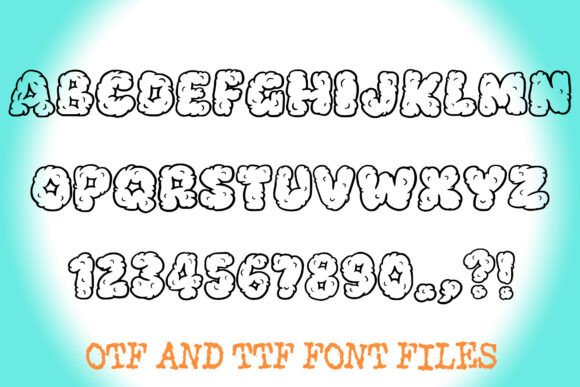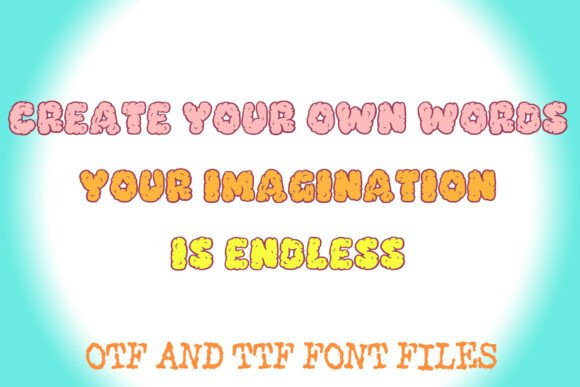
When Fonts Get a Little Too Real
Have you ever found yourself staring at a blank canvas, desperately searching for the perfect font to match the absurdity of your design? Maybe you’re creating a cartoon character, a spooky Halloween graphic, or a slime-themed product – whatever it is, you need a font that’s as bold and playful as your imagination. That’s where Fatty Chunk Font comes in – a hilarious, exaggerated display font designed to make a loud, squishy statement and deliver maximum impact.
This font is a game-changer for designers who crave a little bit of fun and absurdity in their work. With its bubbly, fleshy letterforms and puffed-up textures, Fatty Chunk Font is perfect for any project that needs a little extra oomph. Whether you’re working on a comic title, a children’s graphic, or a slime branding campaign, this font is sure to bring a smile to your face and a wow factor to your design.
Fatty Chunk Font Key Features
- Font Family: Fatty Chunk Font is a display font family designed for use in advertising, posters, and other promotional materials.
- Character Set: Supports a broad range of languages, including Latin, Cyrillic, and Greek alphabets, as well as various diacritical marks.
- Unique Characteristics: Fatty Chunk Font is known for its bold, chunky design and distressed texture, adding a vintage feel to any text.
Fatty Chunk Font Review
Fatty Chunk Font is an interesting addition to the world of typography. Here are some of its notable features:
- ✨ It’s perfect for creating a playful and eye-catching atmosphere in a design project.
- ✨ The bold, rounded letters make it ideal for titles and headings.
- ✨ Fatty Chunk Font is highly customizable, allowing designers to adjust the size, color, and spacing to suit their needs.
- ⚠️ It may not be suitable for formal or professional designs, as its playful nature can come across as unprofessional.
- ⚠️ Fatty Chunk Font can be overwhelming when used extensively throughout a design, so it’s essential to use it sparingly.
- ⚠️ Some characters may not be as well-designed as others, which can detract from the overall aesthetic.
Overall, Fatty Chunk Font is a fun and versatile font that can add a lot of personality to a design project. While it may not be suitable for every project, it’s definitely worth considering for those looking to add a playful touch.
The Fatty Chunk Font is ideal for creating bold and playful headlines, titles, and logos. It’s also great for adding a touch of whimsy to your designs. Some common use cases include:
- Party and event invitations
- Marketing and advertising materials
Alternatives to Fatty Chunk Font
Playfair Display is an elegant, high-end serif font perfect for titles and headings. It features intricate details and luxurious feel, making it ideal for high-end brands, fashion, and luxury goods. When to use: luxury brands, fashion, high-end products.
Comparison to Fatty Chunk Font: While Fatty Chunk Font is bold and playful, Playfair Display is sophisticated and refined. Playfair Display is better suited for formal and elegant designs, whereas Fatty Chunk Font is more casual and playful.
Great Vibes is a modern, elegant script font ideal for titles and headings. It features a flowing, handwritten feel, making it perfect for creative and artistic designs. When to use: creative designs, artistic projects, invitations.
Comparison to Fatty Chunk Font: While Fatty Chunk Font is bold and chunky, Great Vibes is elegant and flowing. Great Vibes is better suited for designs that require a more refined and artistic feel, whereas Fatty Chunk Font is more playful and casual.
While Fatty Chunk Font is a versatile font, it may not be the best choice for logos or branding materials due to its chunky texture and playful feel. It’s best to use Fatty Chunk Font for body text or display text, and reserve more traditional fonts for logos and branding materials.